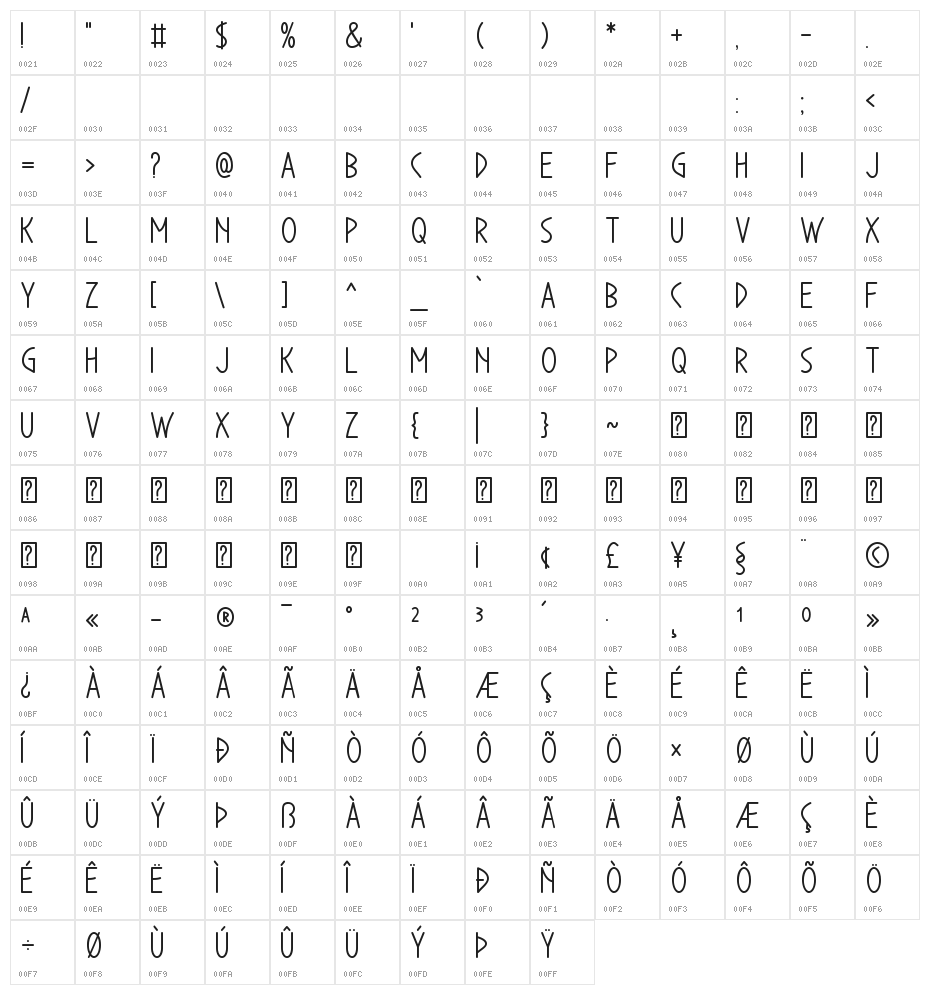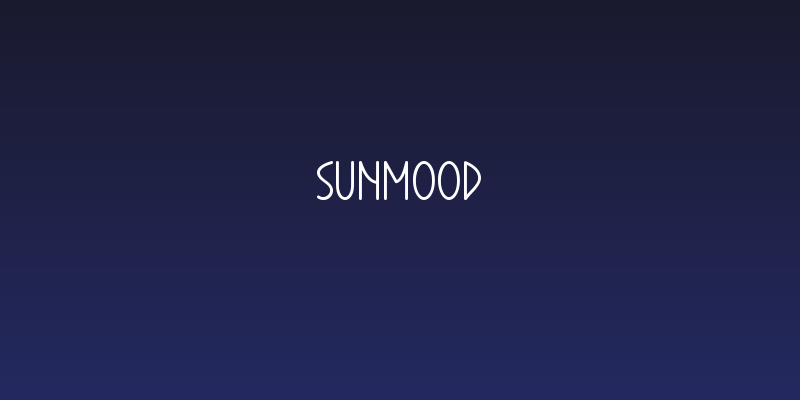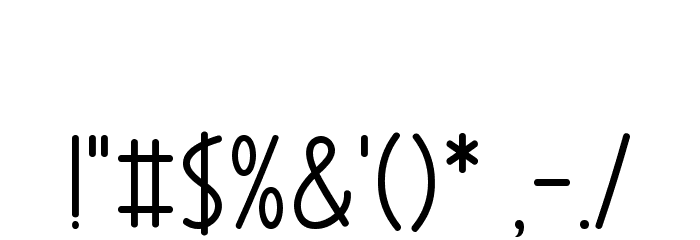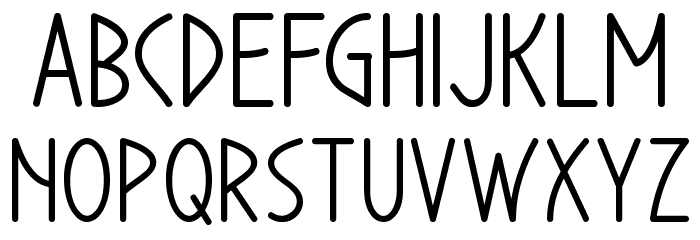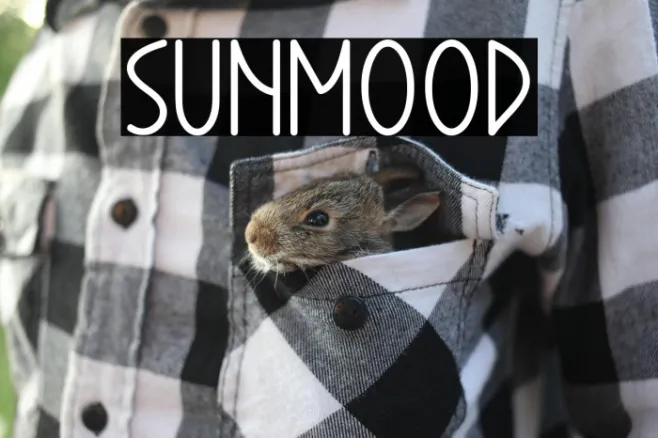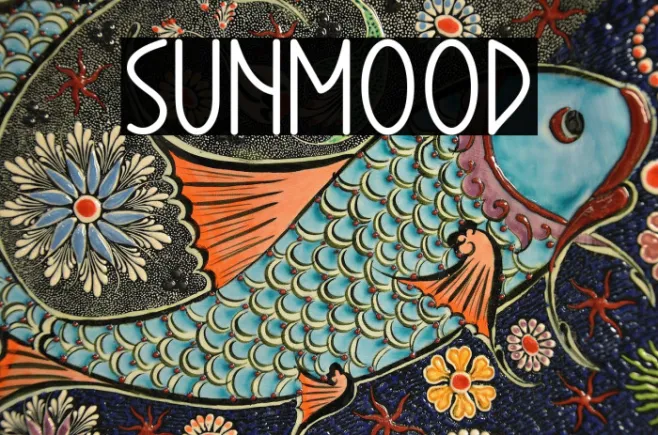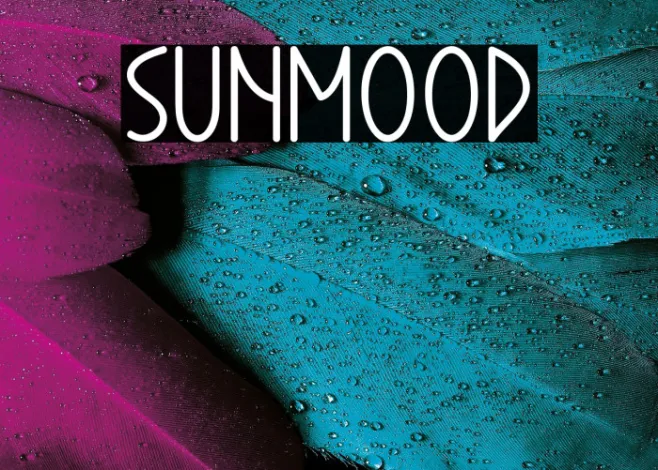
Sunmood Font
Sunmood Description
A playful, handwritten-style font with rounded edges and a casual appearance.
| Use Case | Logos, Informal text, Invitations |
| Proposed Projects | Greeting cards, children's books, casual branding. |